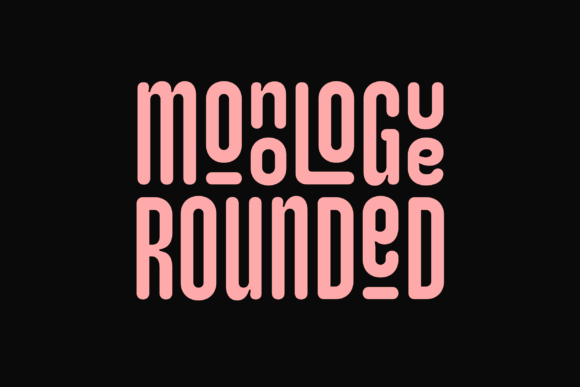
Introducing Monologue Rounded, a font designed to captivate and inspire. Created by Halfmoon Type, this cool and vintage styled sans serif font is the perfect addition to your fonts' library. With its unique and eye-catching features, Monologue Rounded will transform your designs and take them to the next level.
Are you tired of using the same old fonts that everyone else is using? Monologue Rounded offers a fresh and modern twist, allowing you to stand out from the crowd. Its sleek and smooth lines bring a touch of elegance to any project, making it the ideal choice for Instagram posts and beyond.
With Monologue Rounded, your creativity knows no bounds. This font is incredibly versatile, lending itself to various design styles and themes. Whether you're working on a fashion blog, a travel website, or a food recipe collection, Monologue Rounded will effortlessly complement your content, adding a touch of sophistication and class.
But it's not just about looks. Monologue Rounded is also incredibly easy to read, ensuring that your message comes across loud and clear. Its clean and legible characters make it a perfect choice for headlines, captions, and body text alike. Say goodbye to font-related headaches and hello to seamless readability.
But Monologue Rounded is more than just a font. It's a powerful tool that evokes emotion and tells a story. Its vintage vibes transport your audience to another era, igniting a sense of nostalgia and charm. With Monologue Rounded, you can create designs that not only look stunning but also resonate with your viewers on a deeper level.